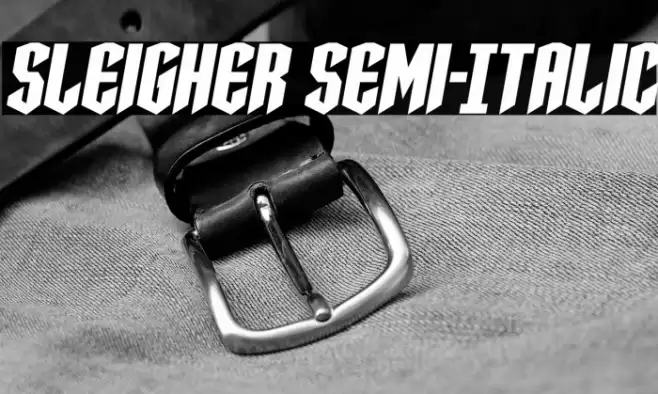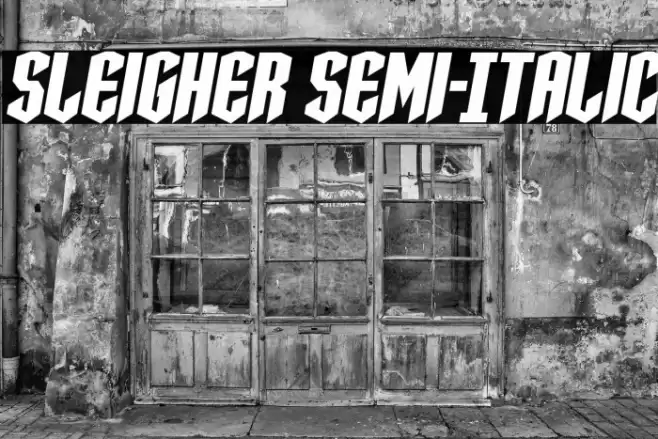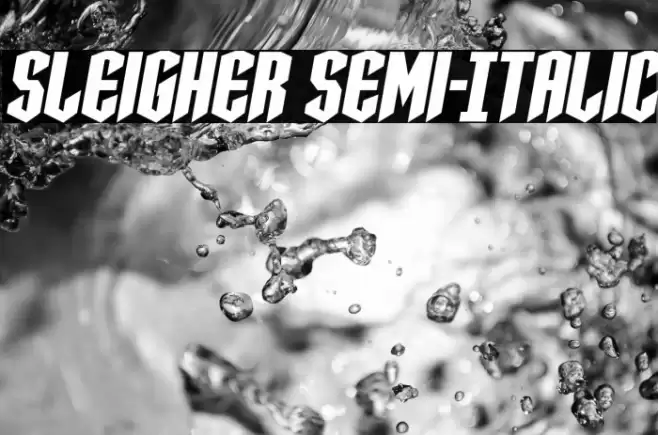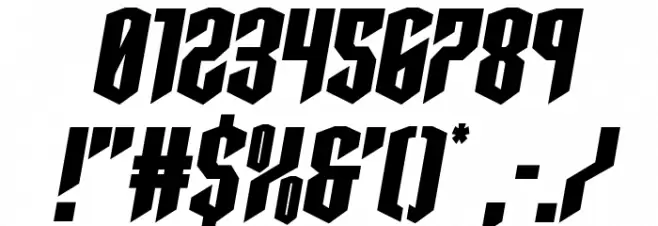
Sleigher Semi-Italic Font
Sleigher Semi-Italic Description
This font features a bold and dynamic design with sharp, angular edges and a forward-leaning italic style. The uppercase and lowercase letters maintain a consistent slant, creating a sense of motion and energy. The numbers and special characters follow the same angular pattern, ensuring uniformity across all glyphs. The font's aggressive and modern appearance makes it suitable for attention-grabbing designs. Its thick strokes and high contrast between thick and thin lines enhance its boldness, making it stand out in any application.
A bold, angular, and italic font with a dynamic, modern style from Uncategorized fonts.